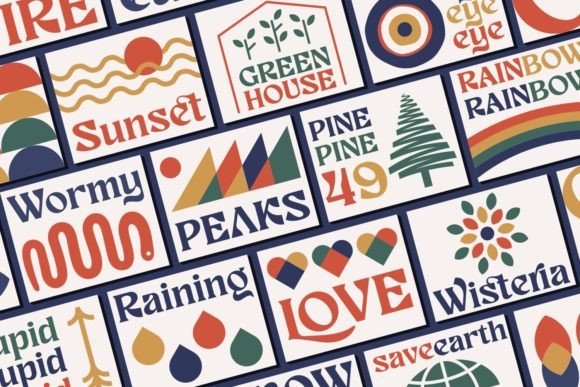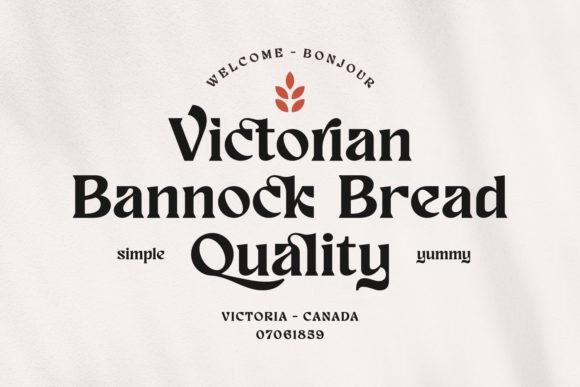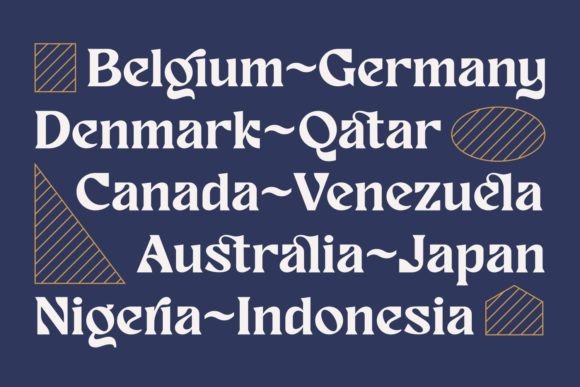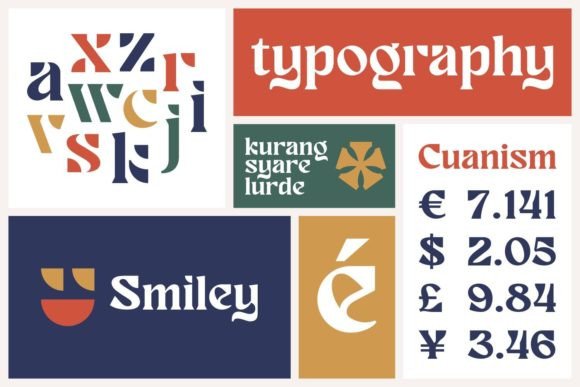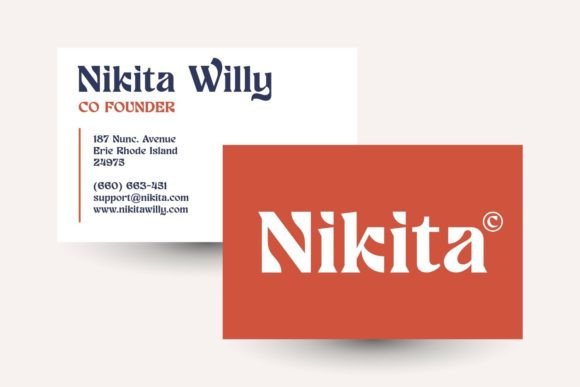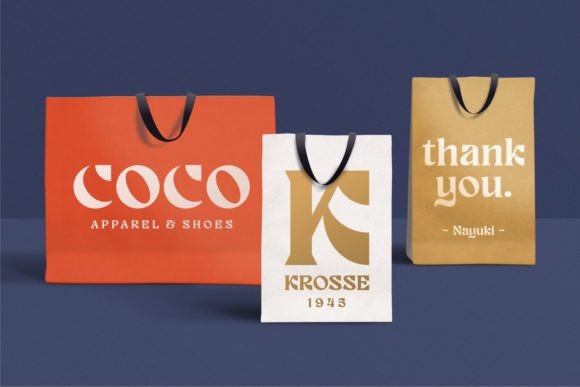
Introduction to Nayuki Font
Nayuki is a cool, modern serif display font.
The Nayuki font provides a unique collection of glyphs that are bold and curved but they also have a strong geometric outline This font will bring you an amazing new visual experience.